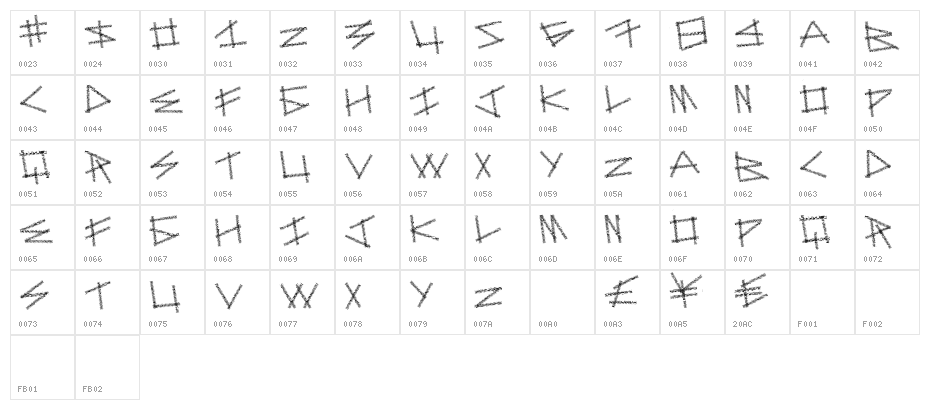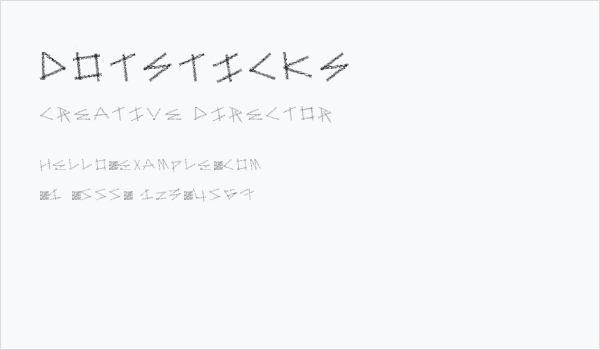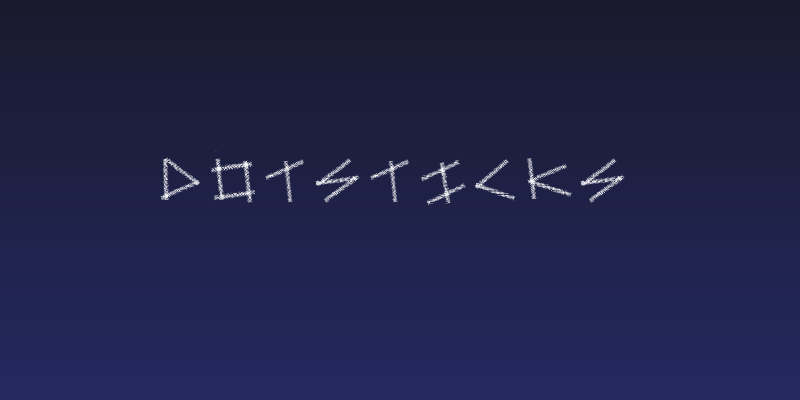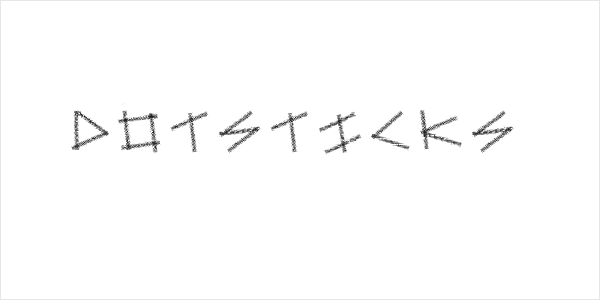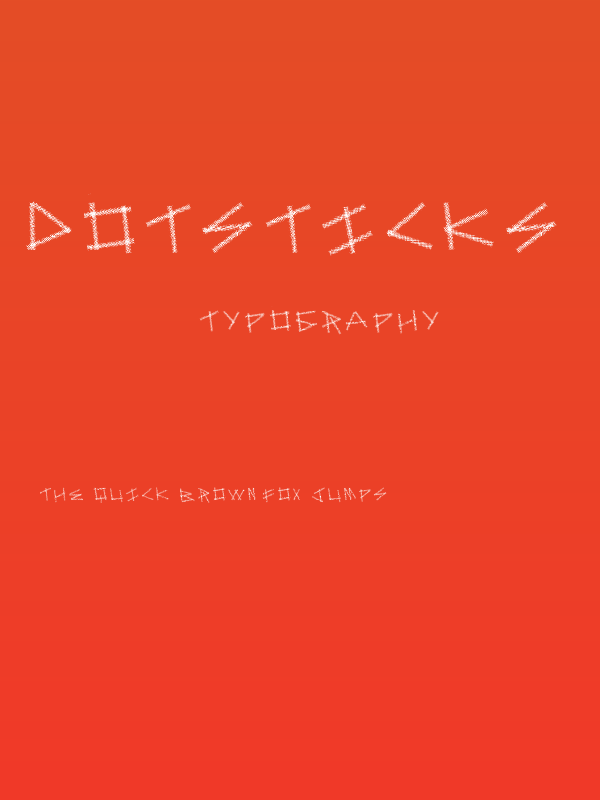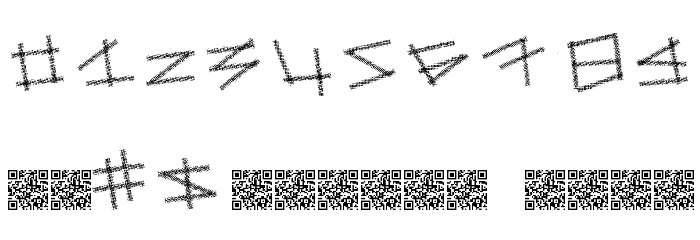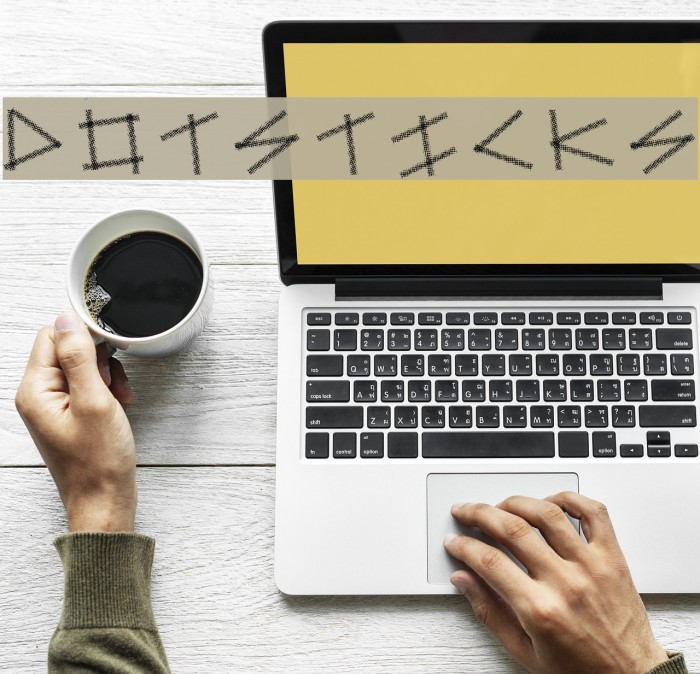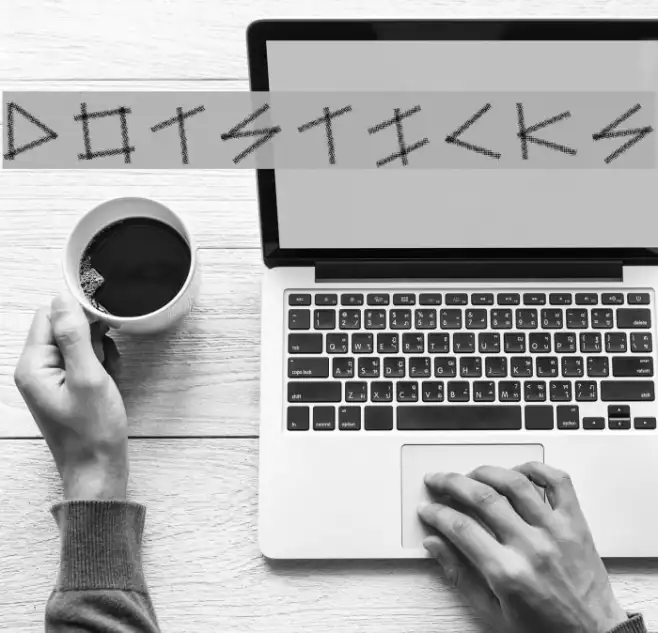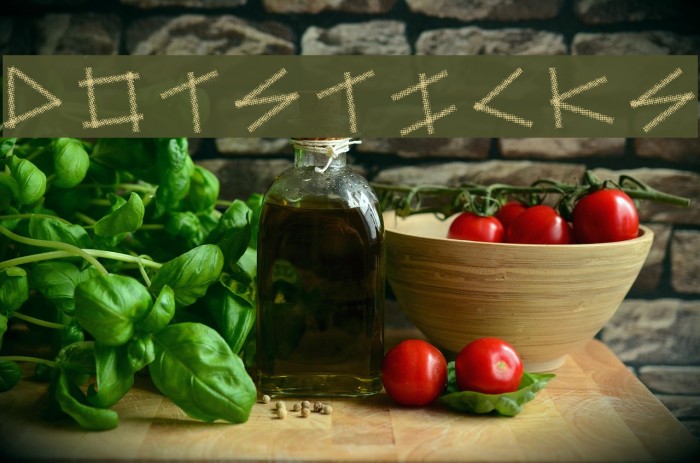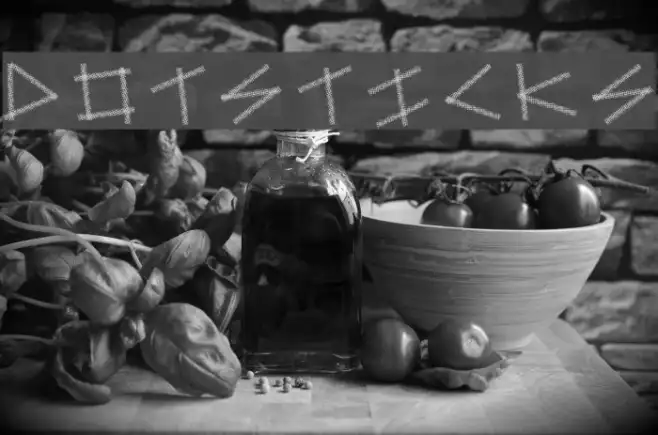
DotSticks Font
DotSticks Description
This font features a unique design where each character is constructed using a series of dots and lines, creating a stick-like appearance. The characters have a hand-drawn, sketchy quality, giving them a playful and informal look. The uppercase and lowercase letters maintain a consistent style, with angular shapes and a slightly irregular form that adds to the font's charm. Numbers and special characters follow the same design principles, ensuring a cohesive appearance across all glyphs. The overall aesthetic is reminiscent of a doodle or a child's drawing, making it suitable for creative and casual projects.
| Overall Style | Playful, Informal, Sketchy |
| Proposed Projects | Ideal for children's books, playful branding, casual invitations, and creative posters. |